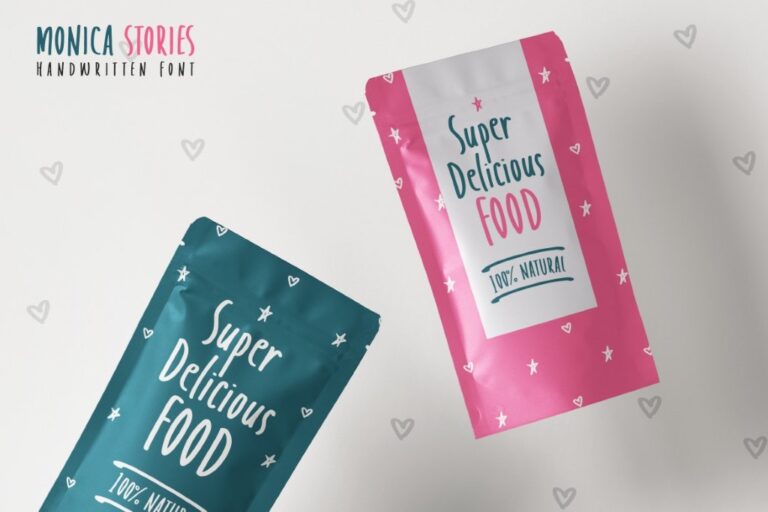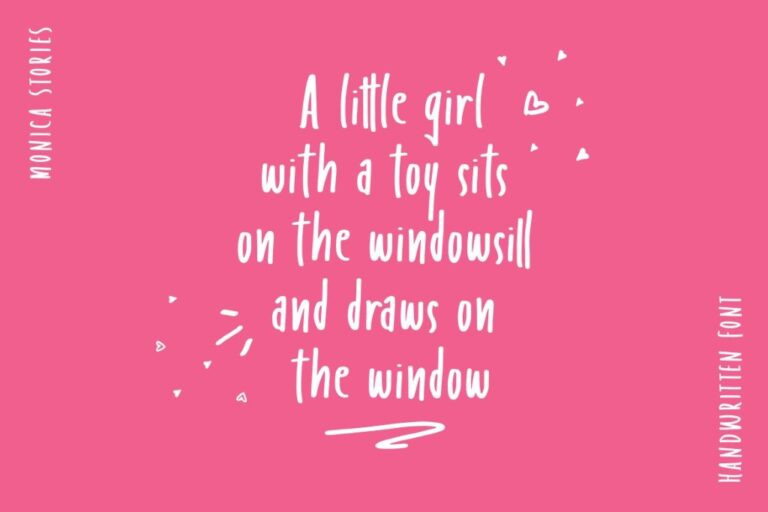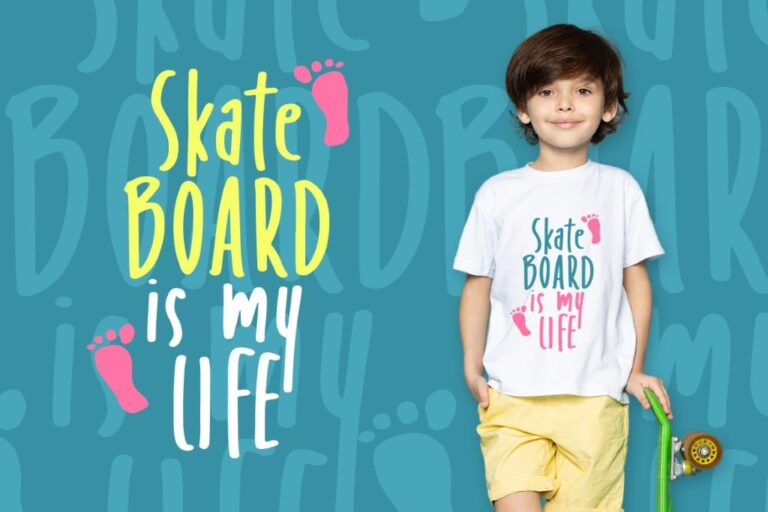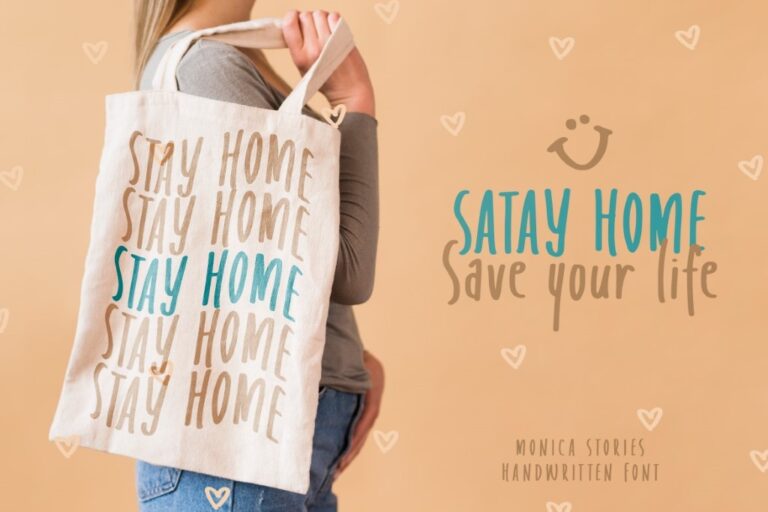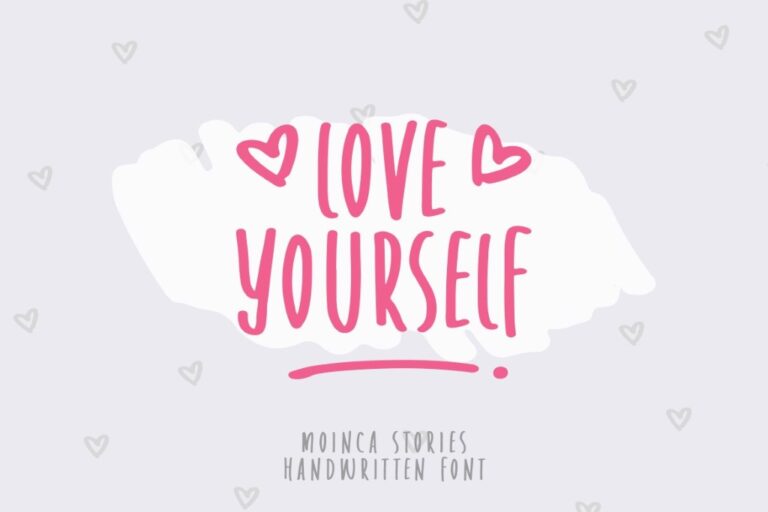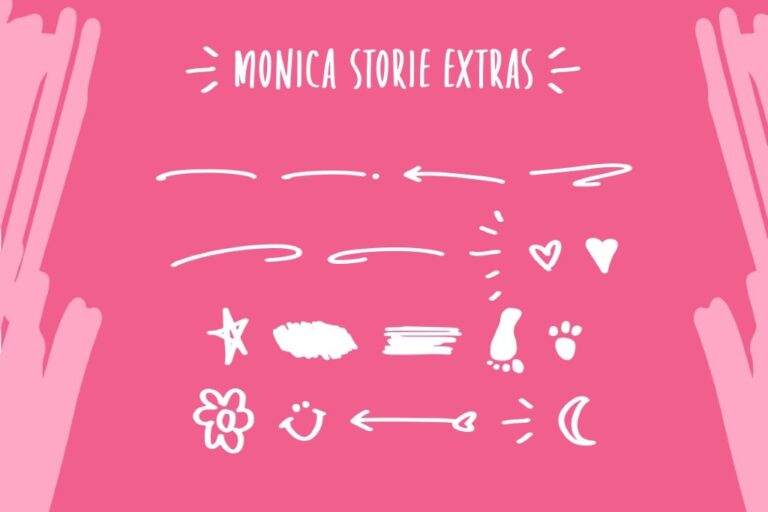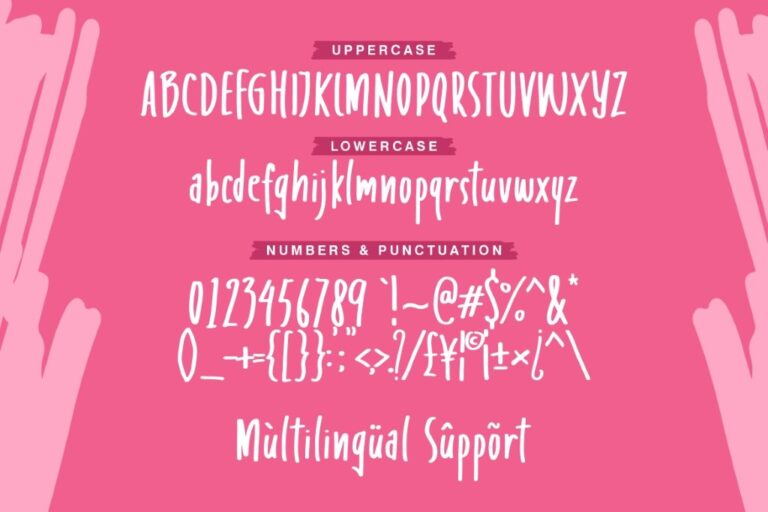
Monica Stories
MONICA Stories is Feminine handwritten font. For you, yes for everyone that looking for friendly font , just use this font, perfect for book cover, for food menu, for educational project, and any logo design, and also social media design